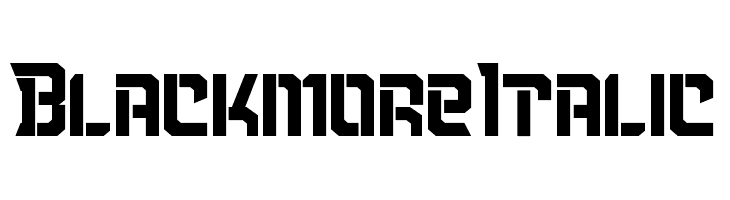
A bold, modern font with a distinctive cut-out style and high contrast.
A bold, modern font with a unique cut-out style for impactful designs.
A bold, angular font with a modern blackletter-inspired design.